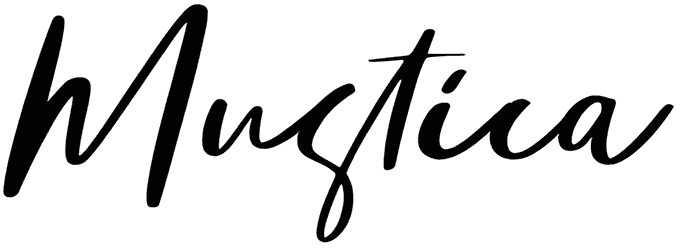
Mustica Font
Mustica is a signature font that, with its handwriting mode, can give a personal touch to your writing and by highlighting it, it can draw more focus to your text.
This font has a combination of hand-drawn letters that gives a strong and official effect to your writing and can strengthen your brand. This font, even without numbers, can be brilliant for branding related to fashion, tattoos, clothing, and packaging design.